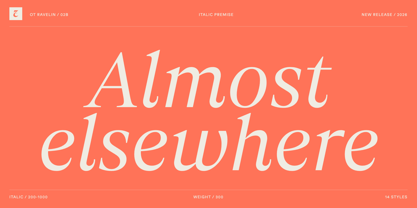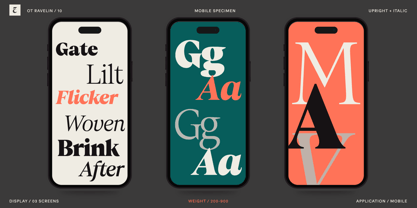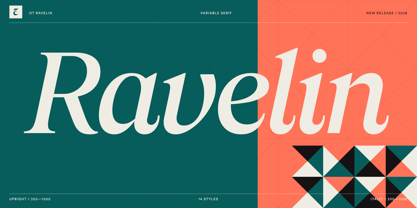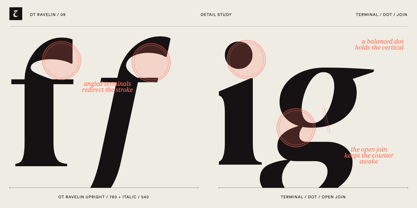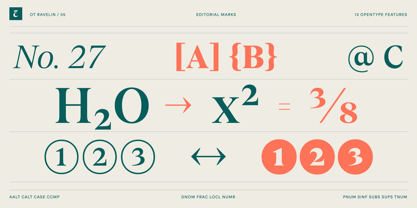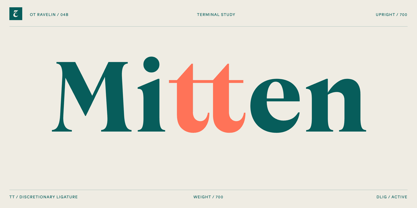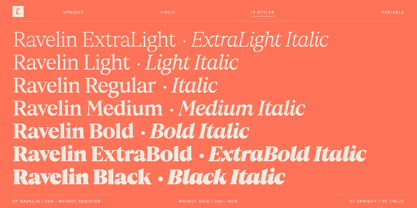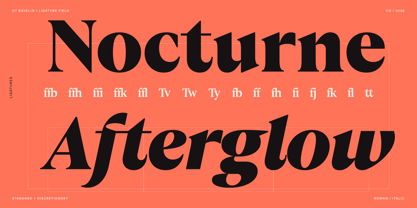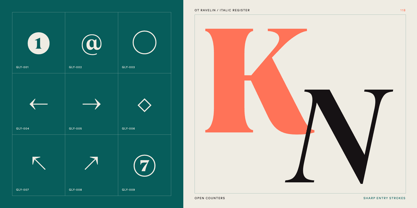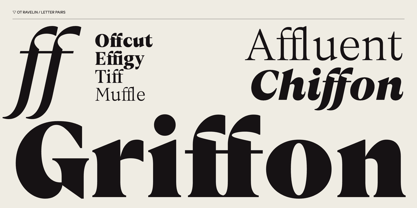
OT Ravelin
OT Ravelin is a high-contrast serif family that combines narrow classical proportions with a precise contemporary edge. Available in 14 styles—seven upright and seven italic—and two variable fonts, Ravelin ranges from Extra Light to Black, moving seamlessly from delicate, luminous typography to commanding sculptural display.
In the lighter weights, blade-thin hairlines, taut curves, and compact counters create an elegant yet unsentimental texture. As the weight increases, the forms gain mass while sharp joins, triangular serifs, and carefully preserved internal spaces keep them crisp and clearly defined. A long-tailed Q, single-storey g, incisive ampersand, and sharply articulated numerals give the family a recognizable voice without relying on decorative excess.
The upright styles are controlled and vertical, making them well suited to editorial design, headlines, visual identities, packaging, and cultural publishing. The separately drawn italics introduce a more calligraphic rhythm through energetic entry strokes and deeper curves while retaining Ravelin’s underlying high-contrast structure.
Latin Extended language support and a comprehensive OpenType feature set—including standard and discretionary ligatures, localized forms, fractions, and multiple numeral styles—extend the family’s usefulness across demanding editorial and identity systems.